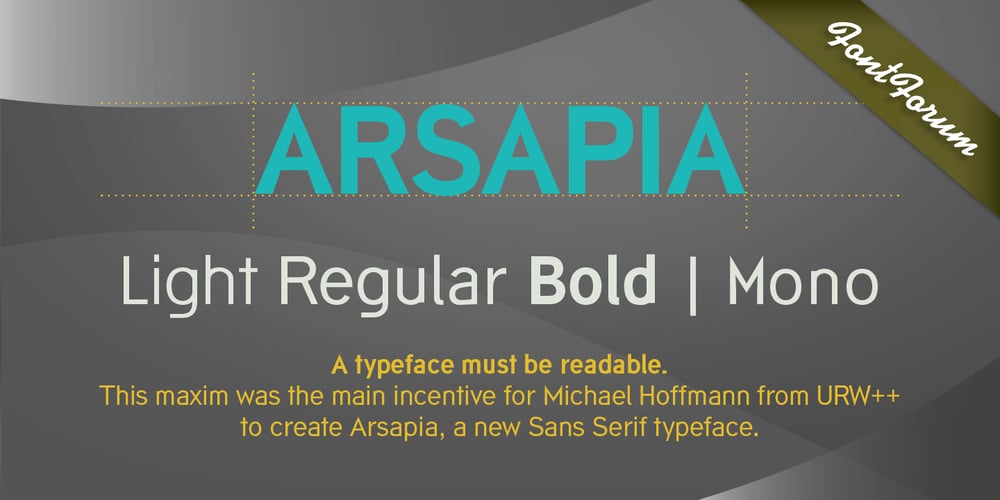
Arsapia Font Family was designed by Michael Hoffmann and published by URW Type Foundry. Arsapia contains 4 styles and family package options. Michael Hoffmann manufactures digital fonts for 30 years. At URW++ he contributed to the technological progress. Over the years, he also specialized in the ideal representation of fonts on screen and the complex assembly of international fonts with scripts of all countries. In his latest project he put the emphasis on developing a highly readable typeface. Less interested in the design as in the functionality of this typeface, he designed Arsapia which he has now installed as a system font on all his computers. Michael Hoffmann studied Japanology at the University of Hamburg and traveled in the early years of his professional activity frequently to Japan, there to train the IKARUS font production tools to Japanese customers. In his spare time he plays guitar or golf depending on the weather. The typeface Arsapia has been designed in such a way that all three font styles Light, Regular and Bold have the same width. When a user therefore opts for the use of Arsapia Light, even though he has already written his text in Regular, nothing changes with respect to the letter tracking. When choosing the Bold for emphasis: Nothing changes except the blackness of the letters. A font change does not engender unwanted line and page breaks of itself. All letters can be clearly distinguished from each other. 1 l I O 0 are all different. For programmers and lovers of monospaced fonts Michael Hoffmann has developed a fourth typeface: Arsapia Mono. This is the perfect terminal font.